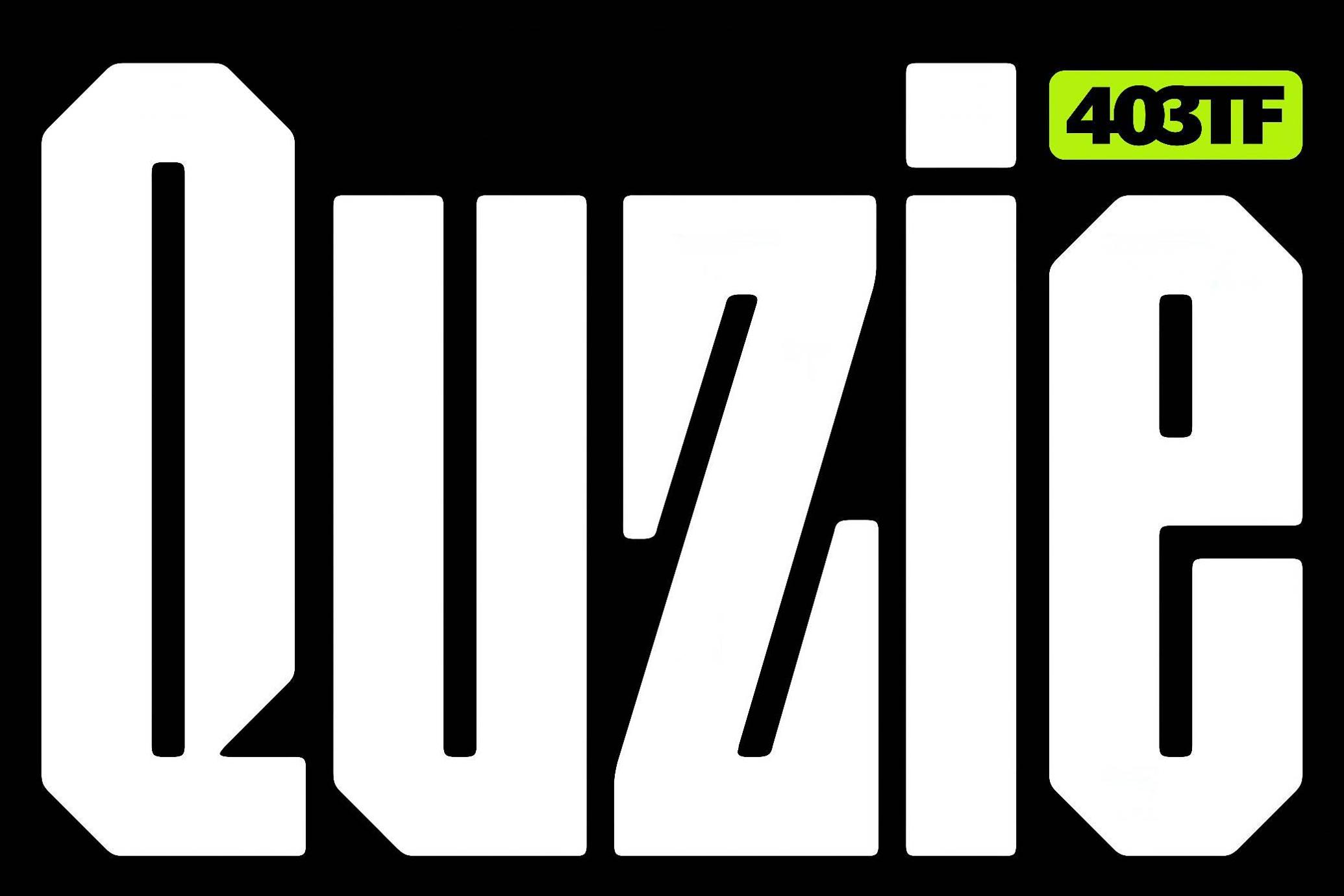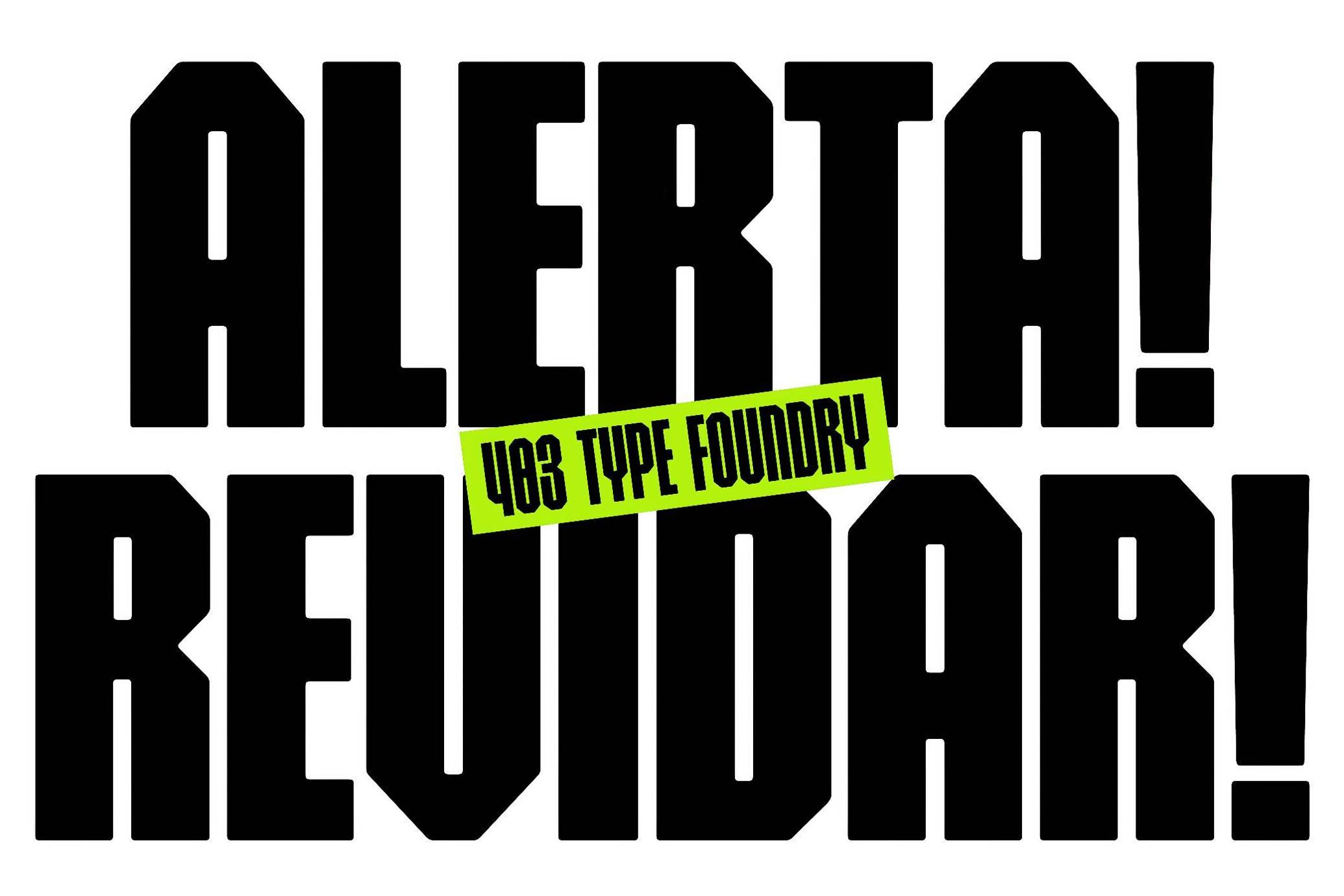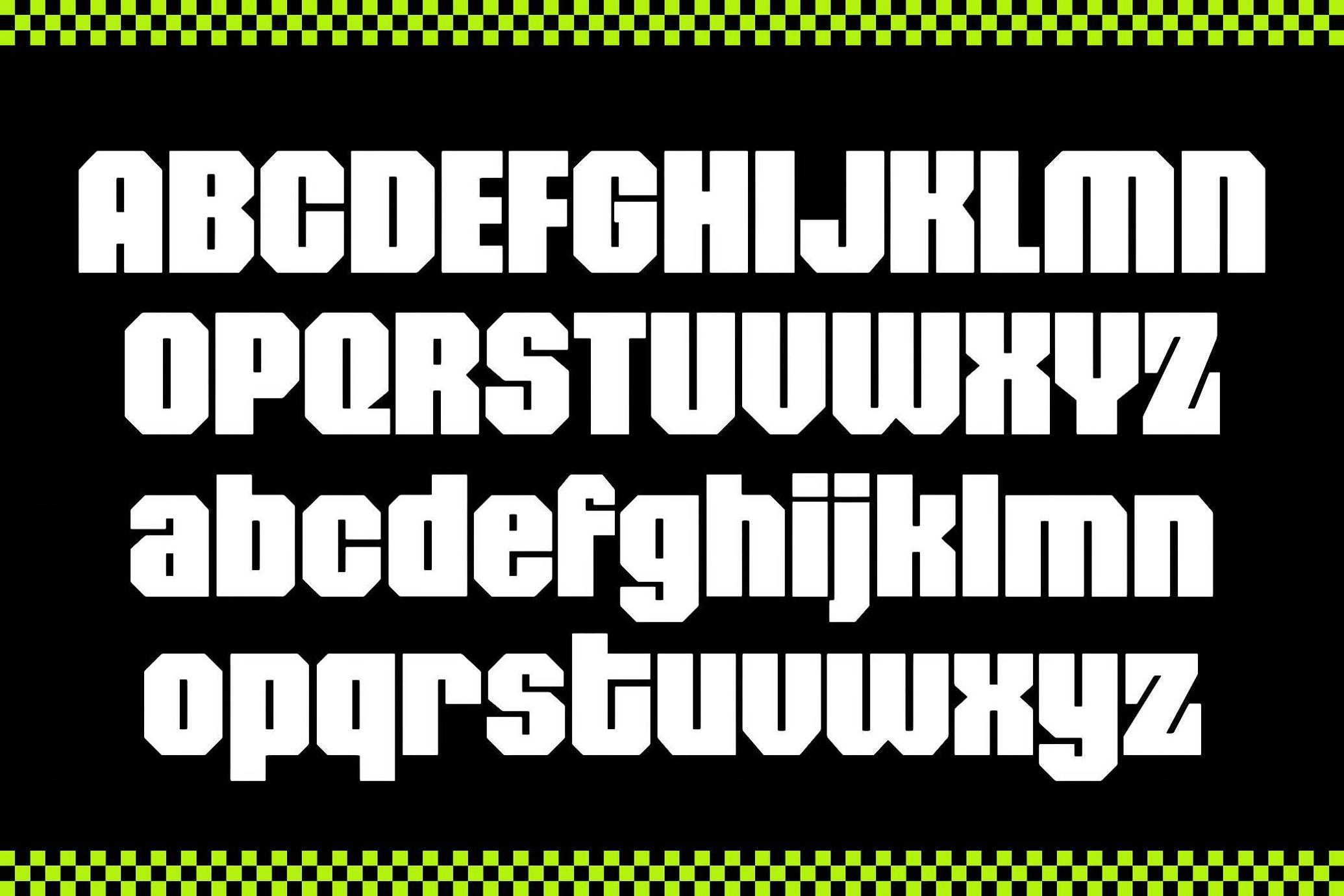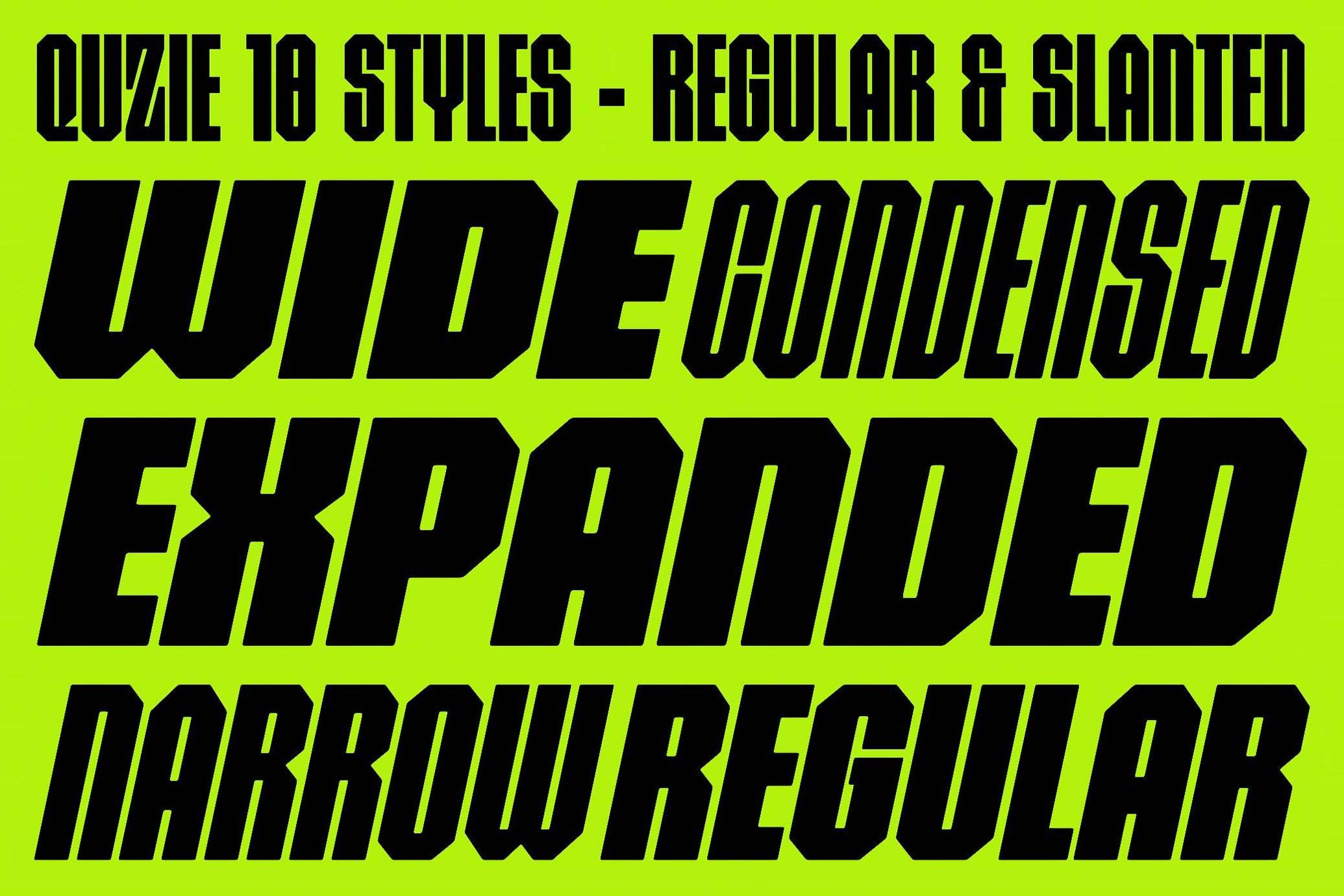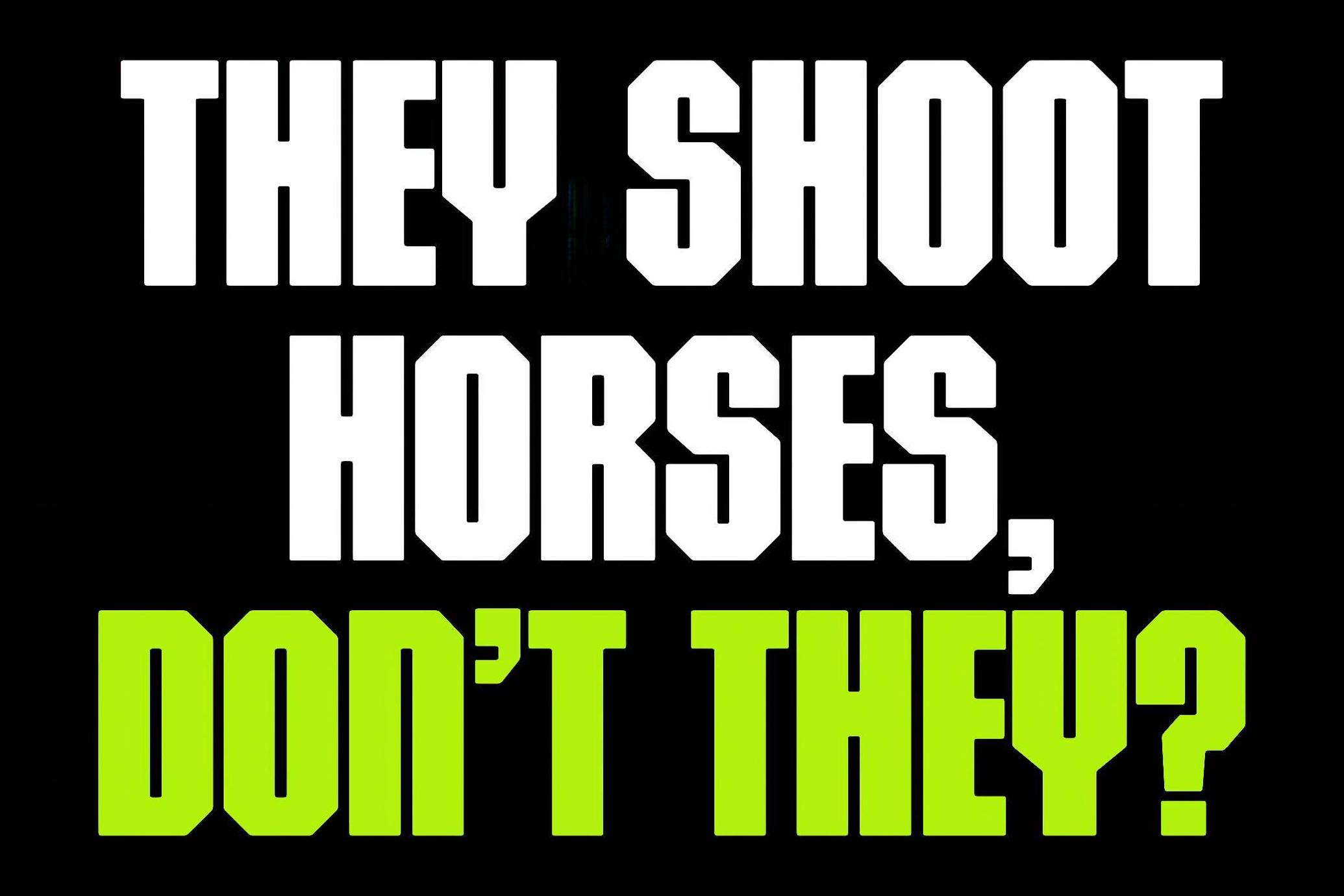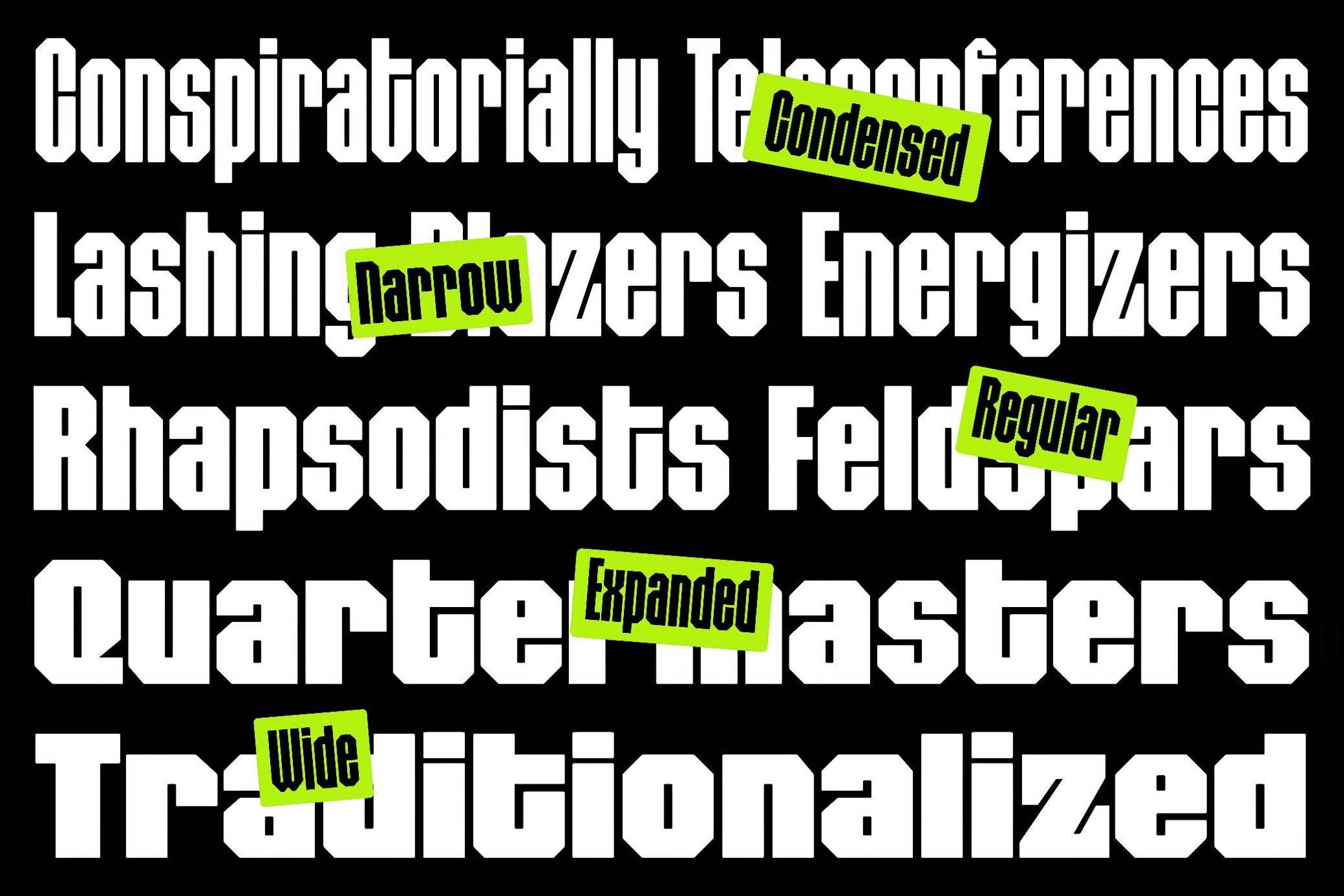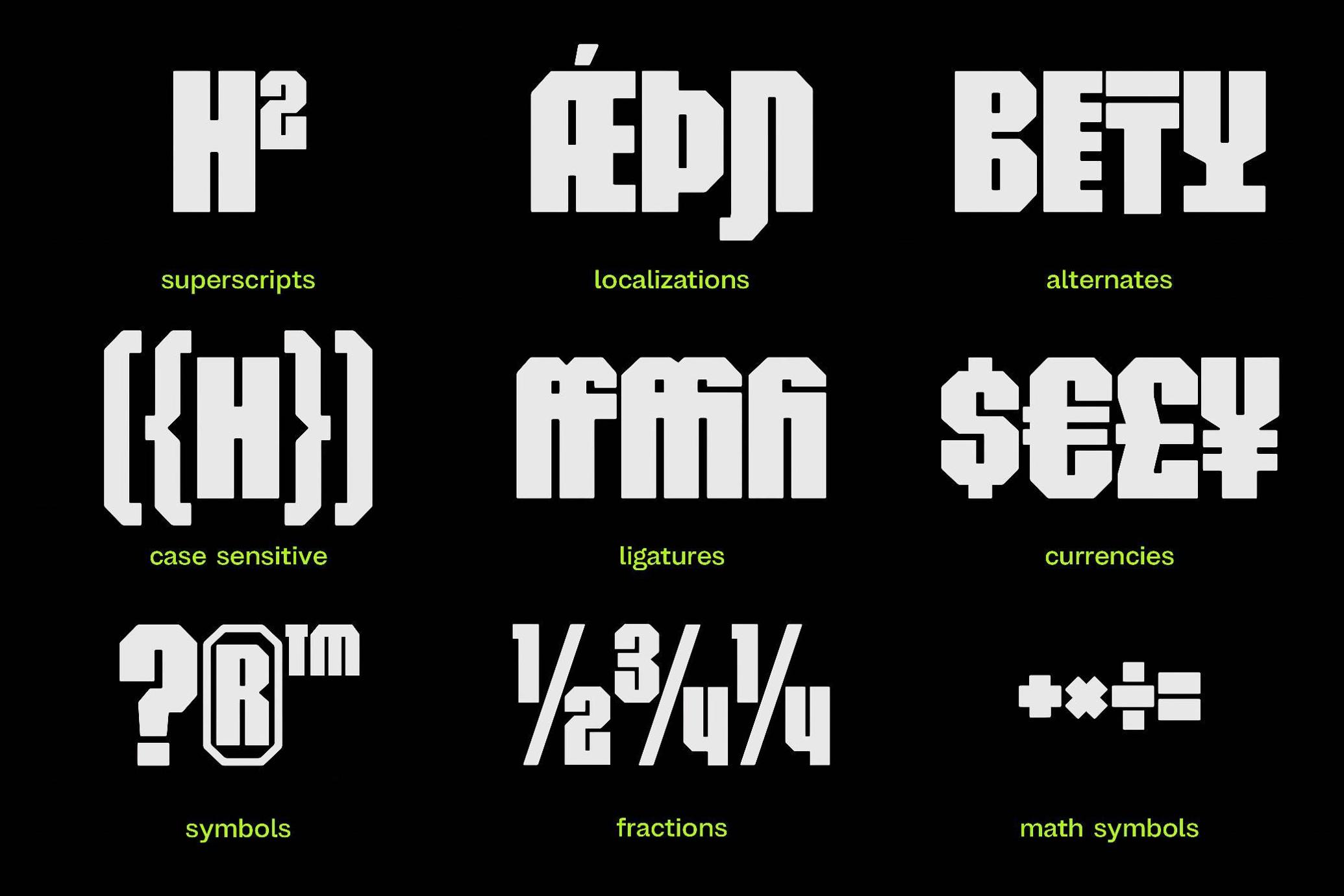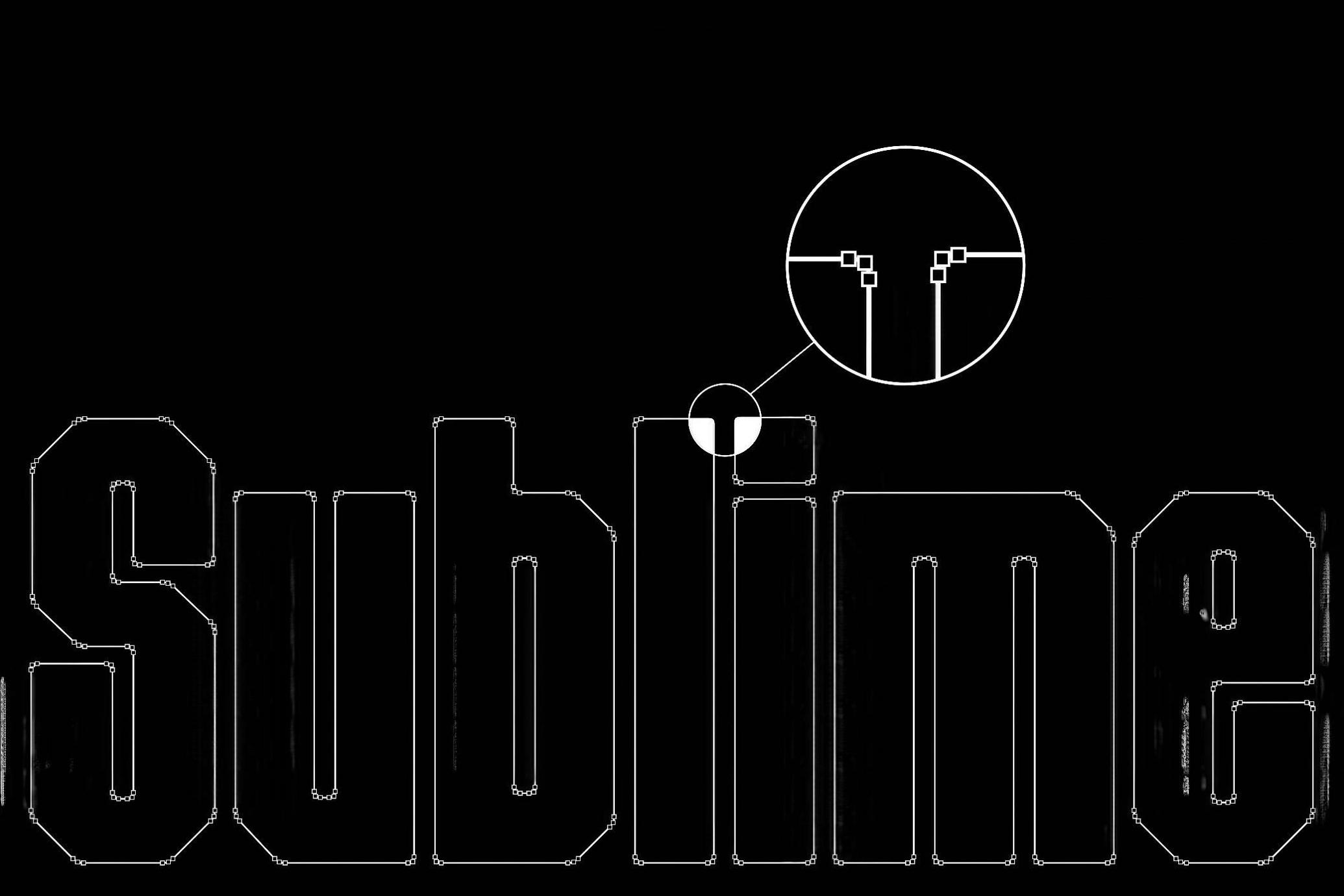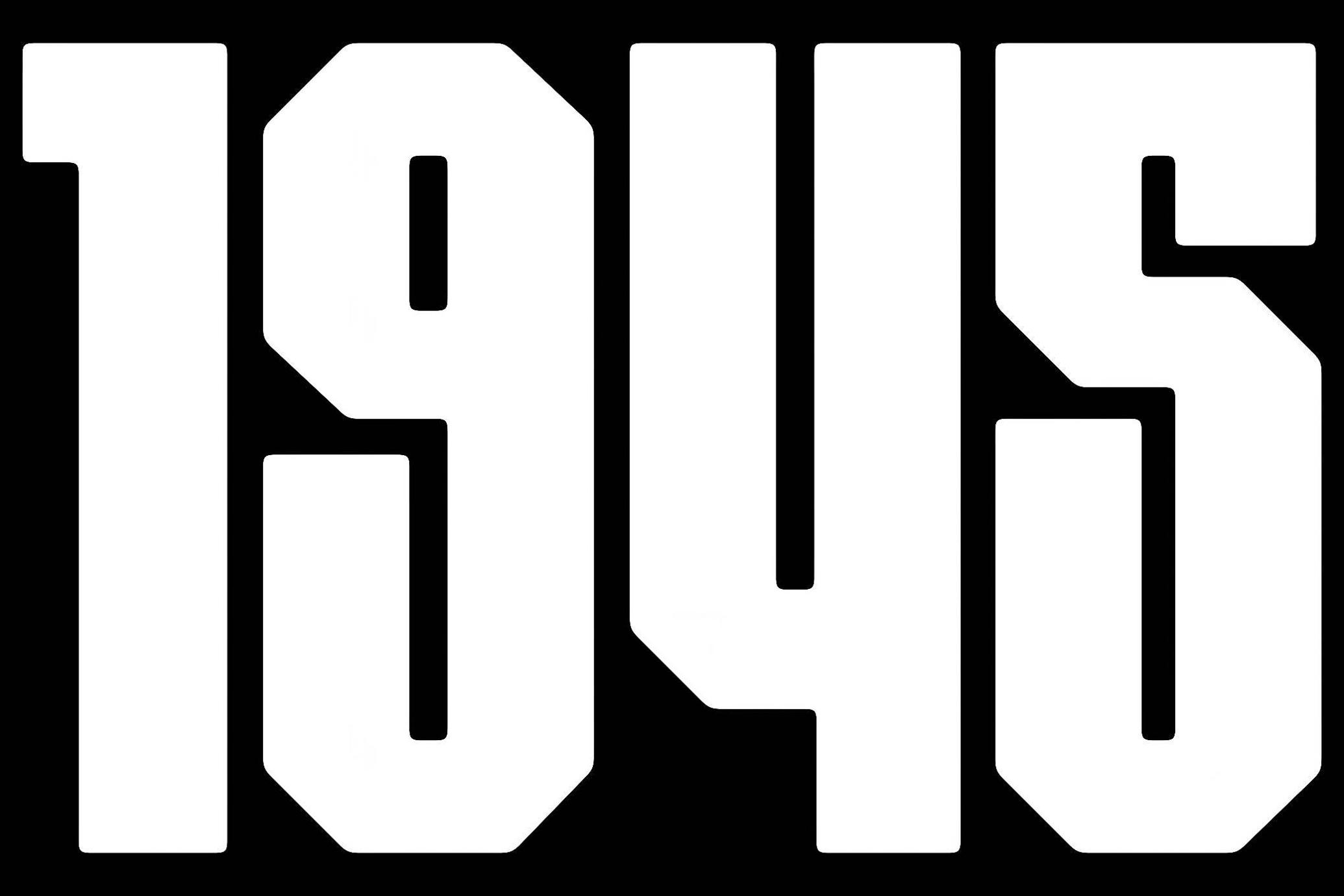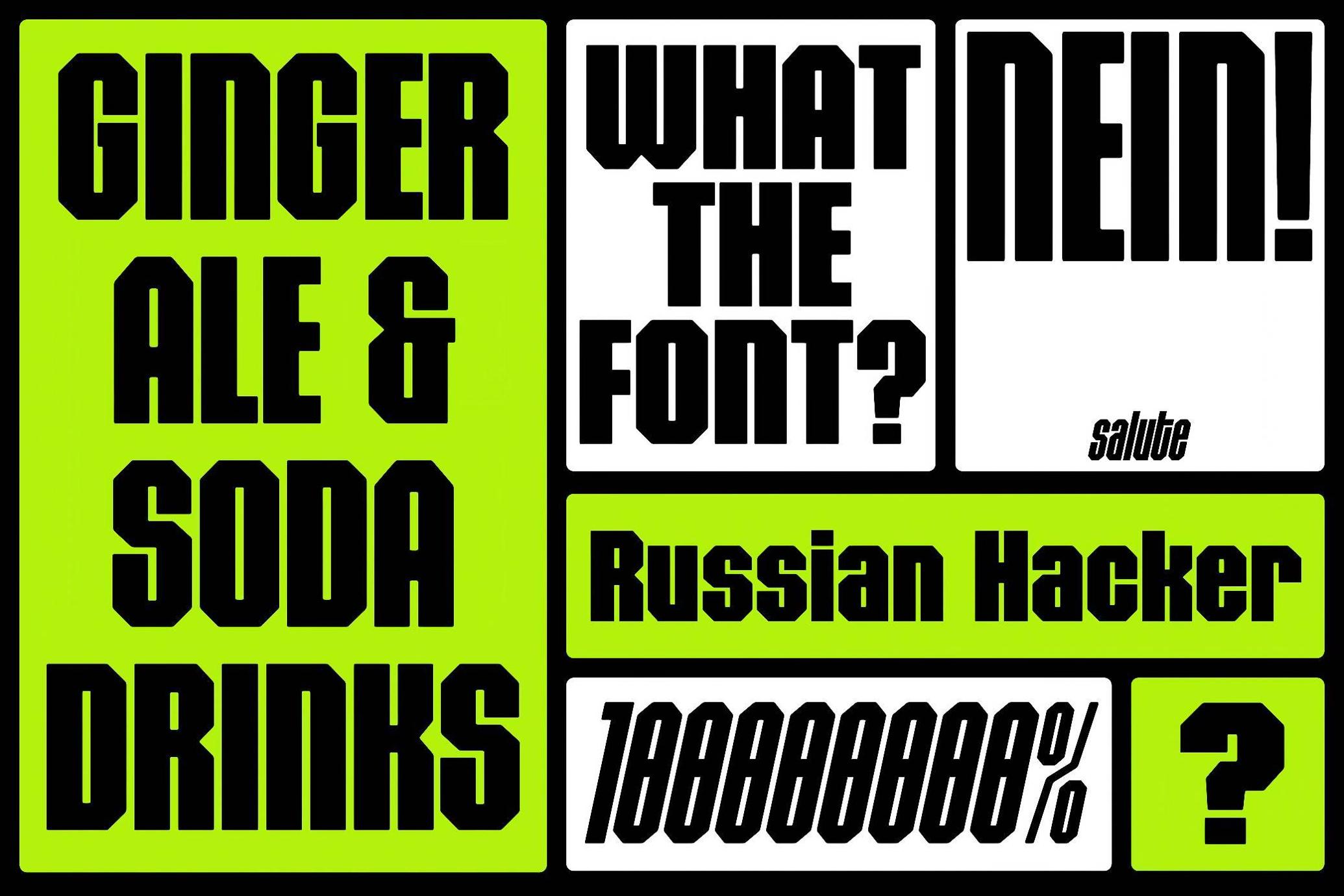
403 Quzie
Regular Slant
Condensed
Condensed Slant
Narrow
Narrow Slant
Expanded
Expanded Slant
Wide
Wide Slant
403 Quzie kicks the door off its hinges. Built for big moves and louder headlines, this font is engineered to dominate screens, posters, and packaging with brutalist charm and techno edge. Whether you’re designing for esports, streetwear, or a cyber-noir campaign, Quzie’s hard cuts and no-nonsense structure keep the message loud. With 10 styles — from Condensed to Expanded, Regular to Slanted — it flexes across widths and weights without losing that punchy, compressed power. Definitely not your go-to for paragraphs, but a dream for any project that thrives on impact, speed, and graphic muscle.